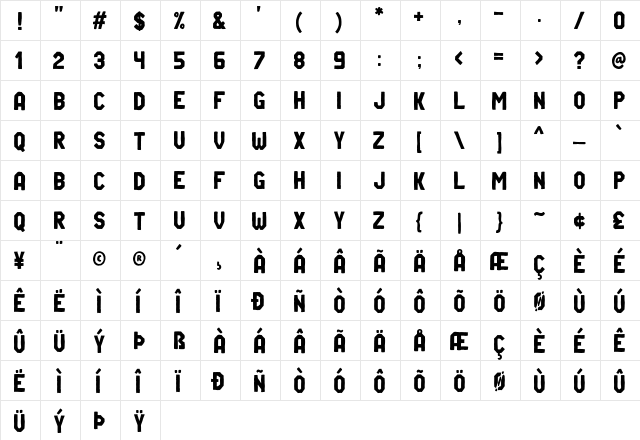
Riverside Sans Regular
Design Context for Riverside Sans Typeface
Riverside Sans offers clean, dependable letterforms without strong stylistic allegiance, making it a practical choice for designers who need flexibility.